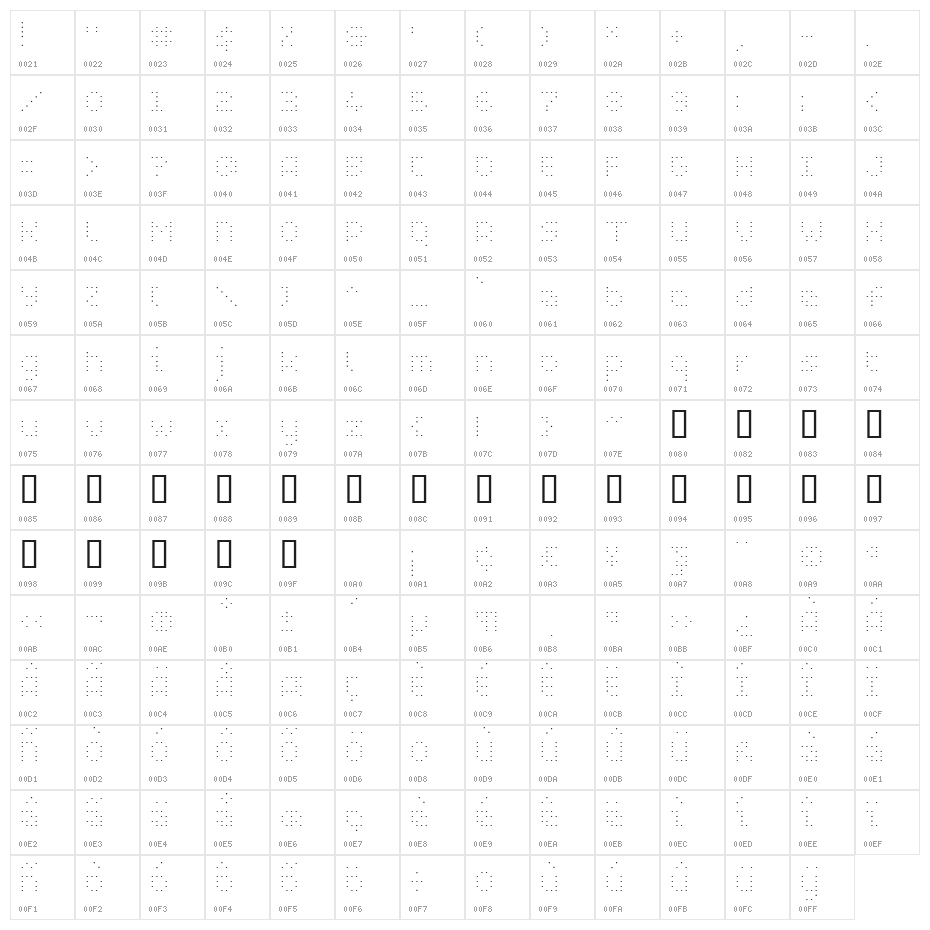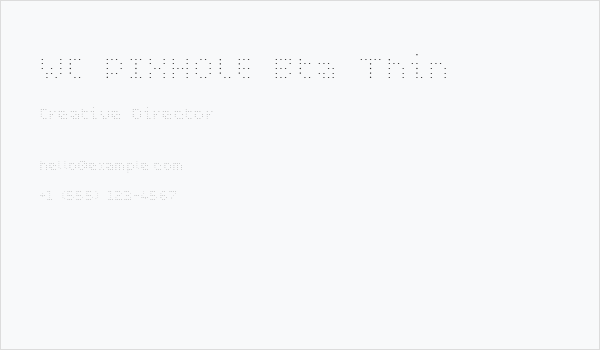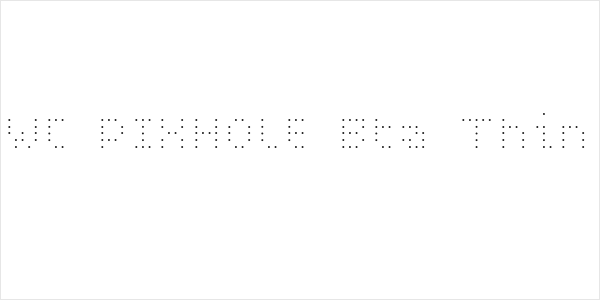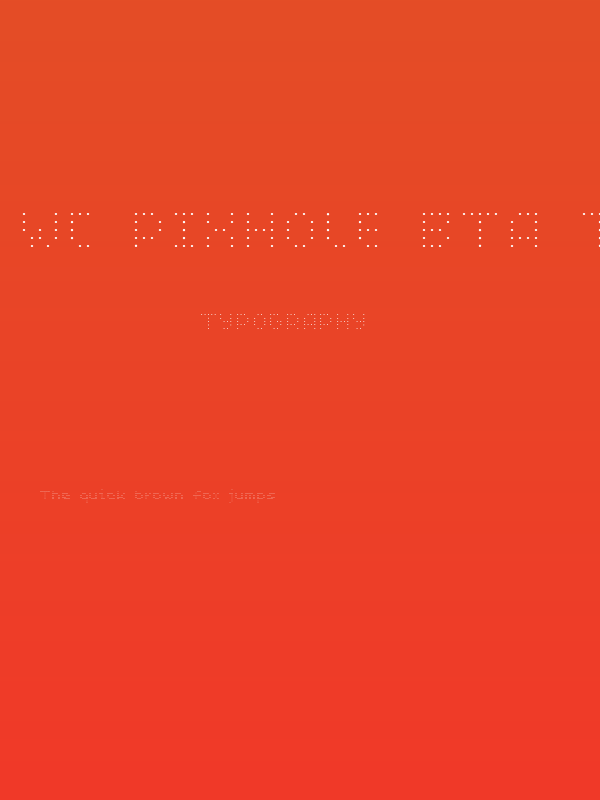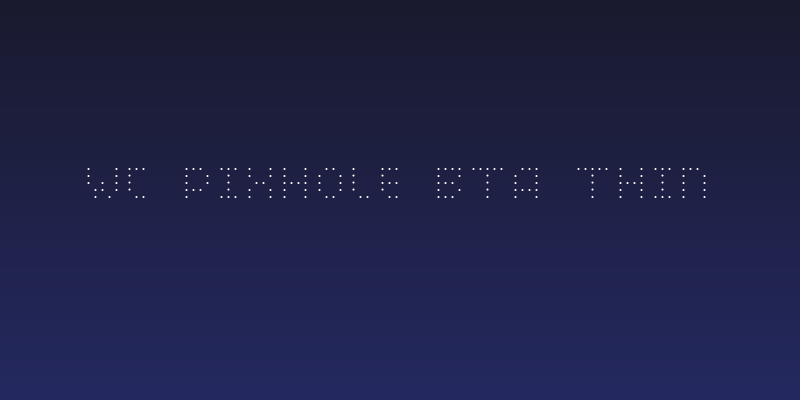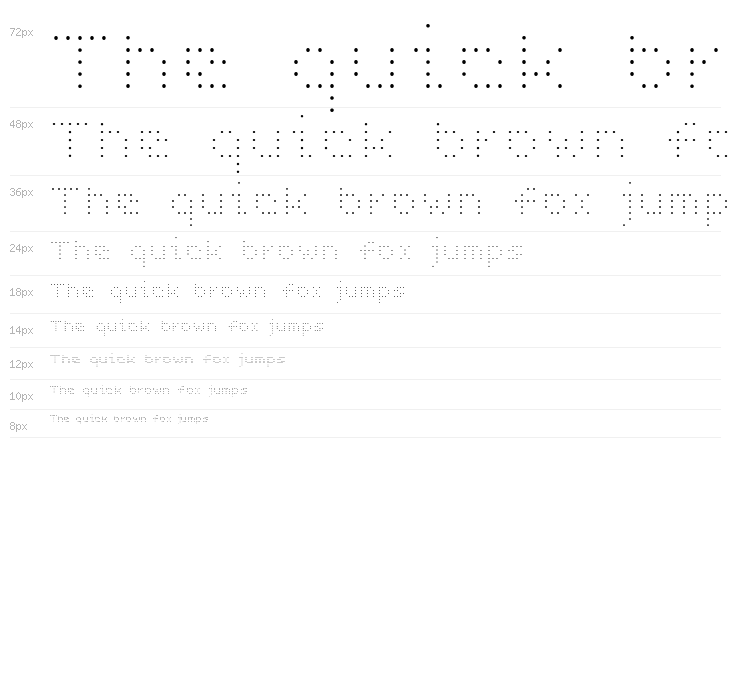
WC PIXHOLE Bta Thin Font
WC PIXHOLE Bta Thin Description
This font features a unique dotted design, where each character is composed of small, evenly spaced dots. The overall appearance is modern and minimalistic, creating a digital or pixelated effect. The characters maintain a consistent structure, making them easily recognizable despite the unconventional style. This font is particularly suitable for creative projects that require a futuristic or tech-inspired aesthetic. The spacing between the dots is uniform, contributing to a clean and organized look. It is a decorative font that stands out due to its distinct approach to character formation.
| Proposed Projects | Ideal for digital art, tech-themed designs, futuristic branding, and creative posters. |